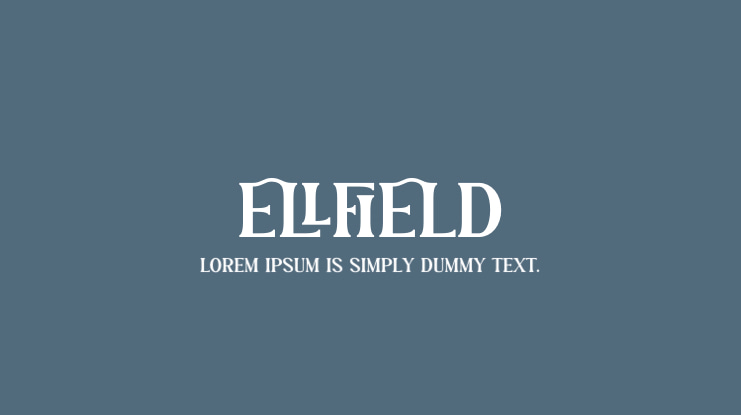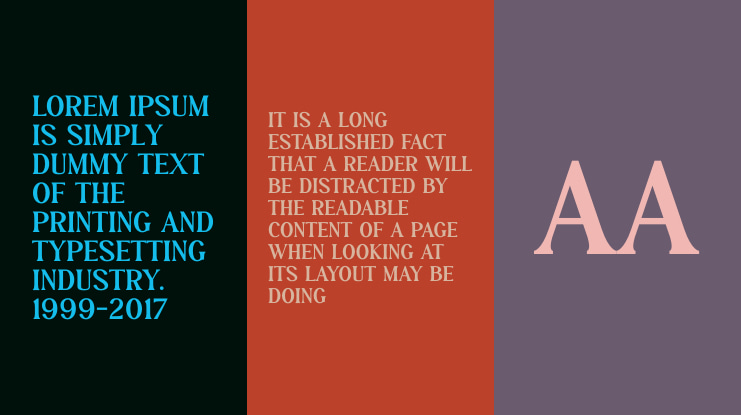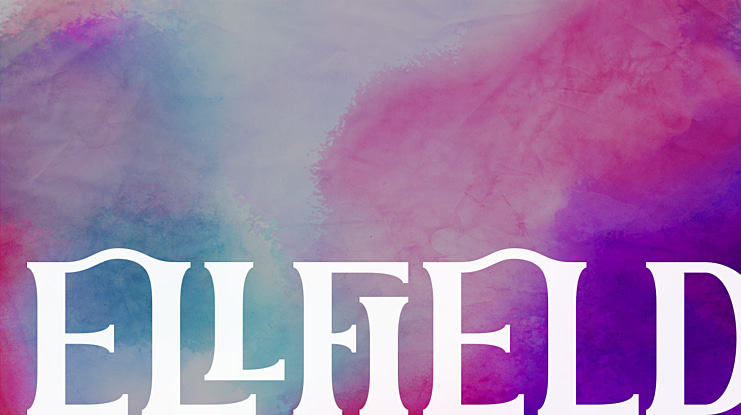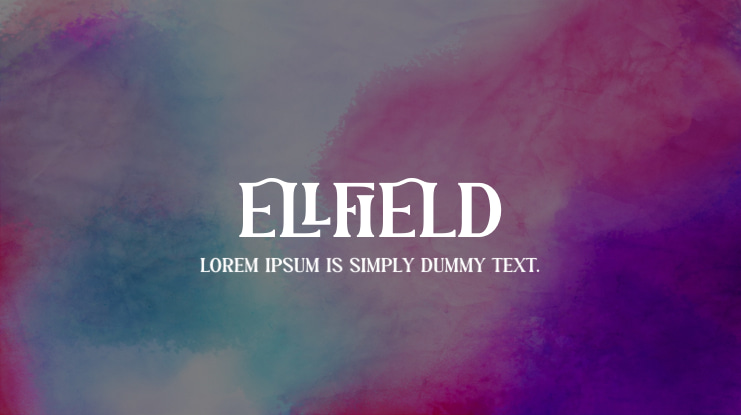
ELLFIELD Font
Biham Santoso
This is classic display serif typeface inspired by rich ligatures & alternates. This font is PUA encoded which means you can access all of the glyphs and swashes with ease! Add it confidently to your favorite creations and let yourself be amazed by the outcome generated.